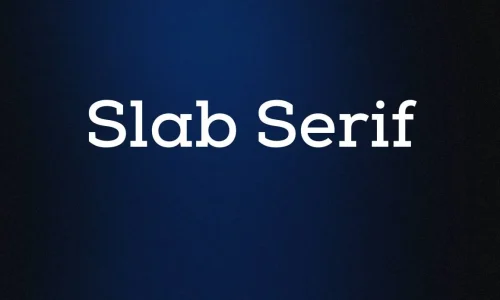
Berthold City Font is a classic and timeless typeface, often chosen for formal documents, editorial design, and branding.
Its well-proportioned letterforms and traditional style convey a sense of tradition and sophistication, making it an ideal choice for high-end projects.
| Name | Berthold City Font |
| Designer | Georg Trump |
| Style | Slab Serif |